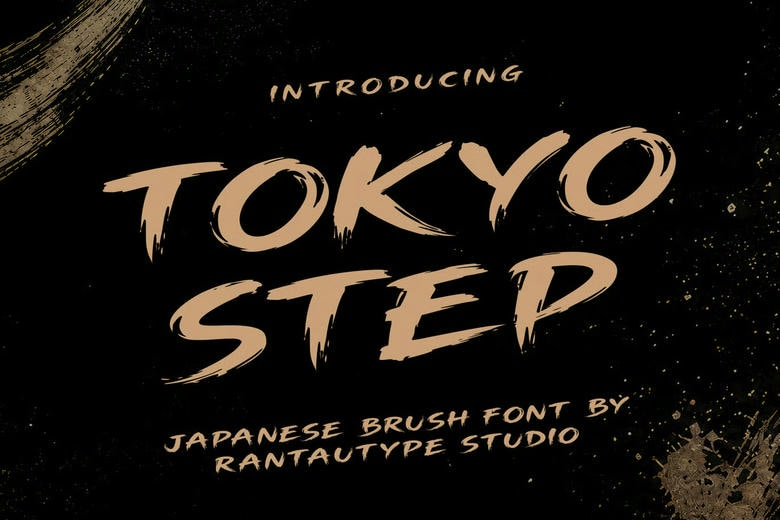
Tokyo Step Font
Tokyo Step is a brush font inspired by the expressive beauty of Japanese brush lettering. It combines raw energy, artistic movement, and a modern look. Each letter has dynamic strokes, natural imperfections, and tapered edges.
Tokyo Step works well for creative projects, from logos and titles to branding, invitations, magazines, social media posts, ads, packaging, product designs, labels, photography, watermarks, and special events. Use it whenever you want to add an artistic touch.
Tokyo Step Japanese Brush Font